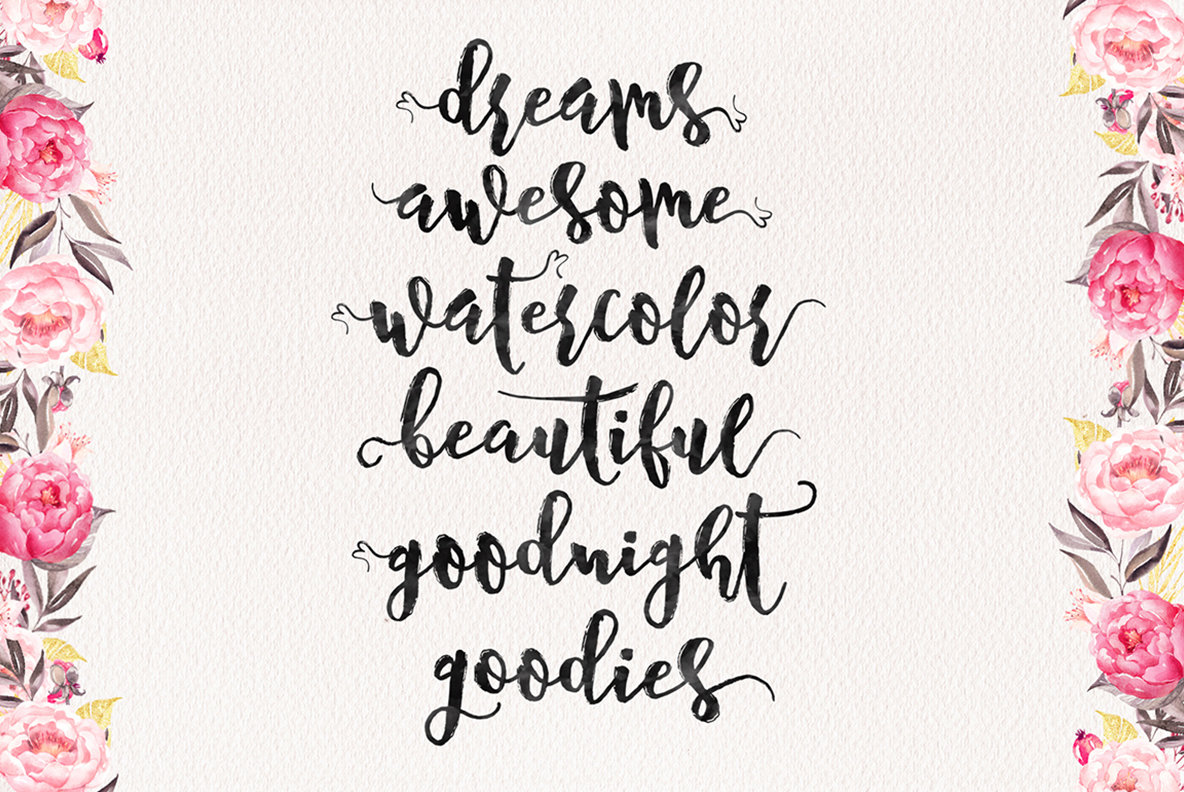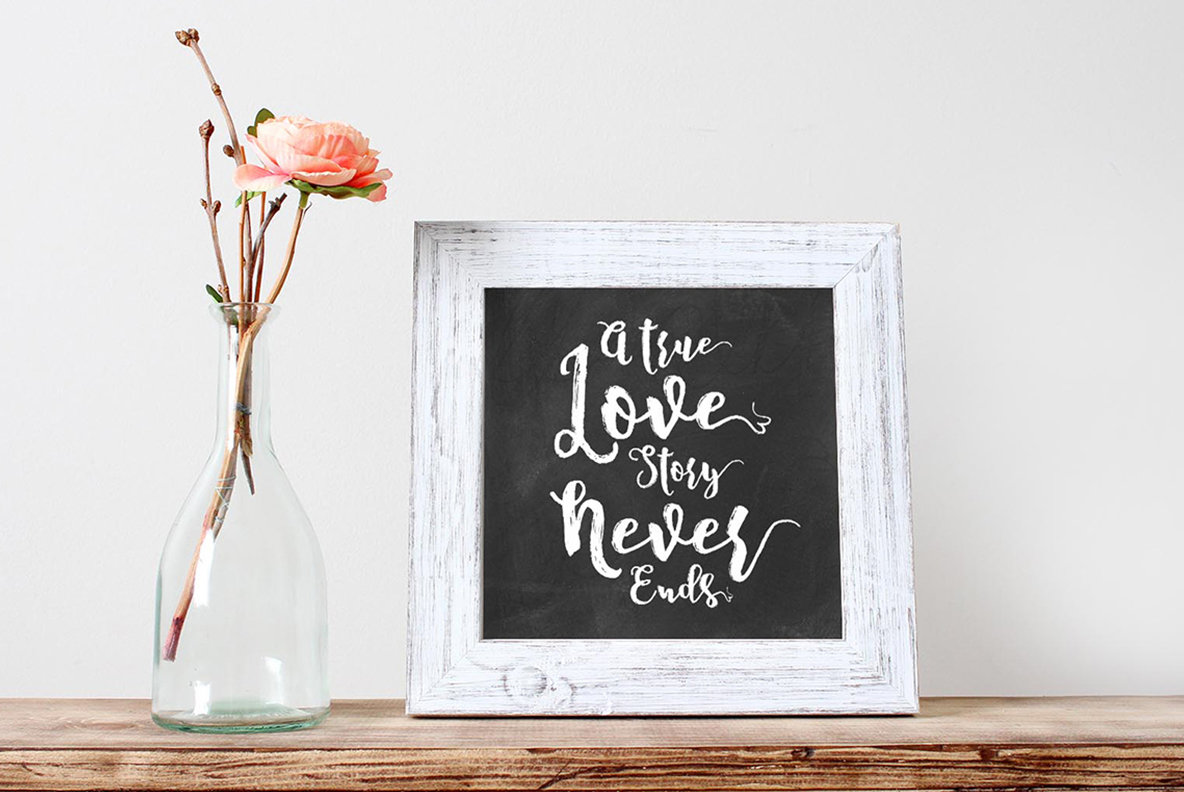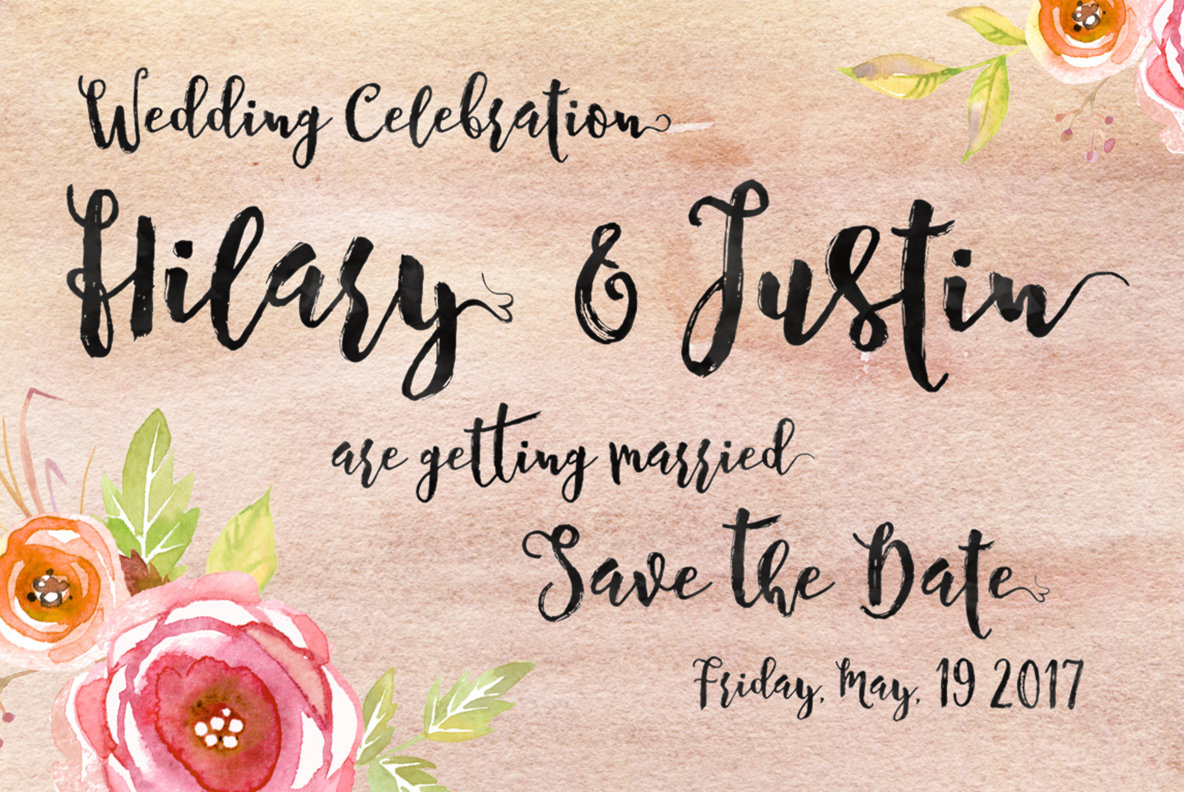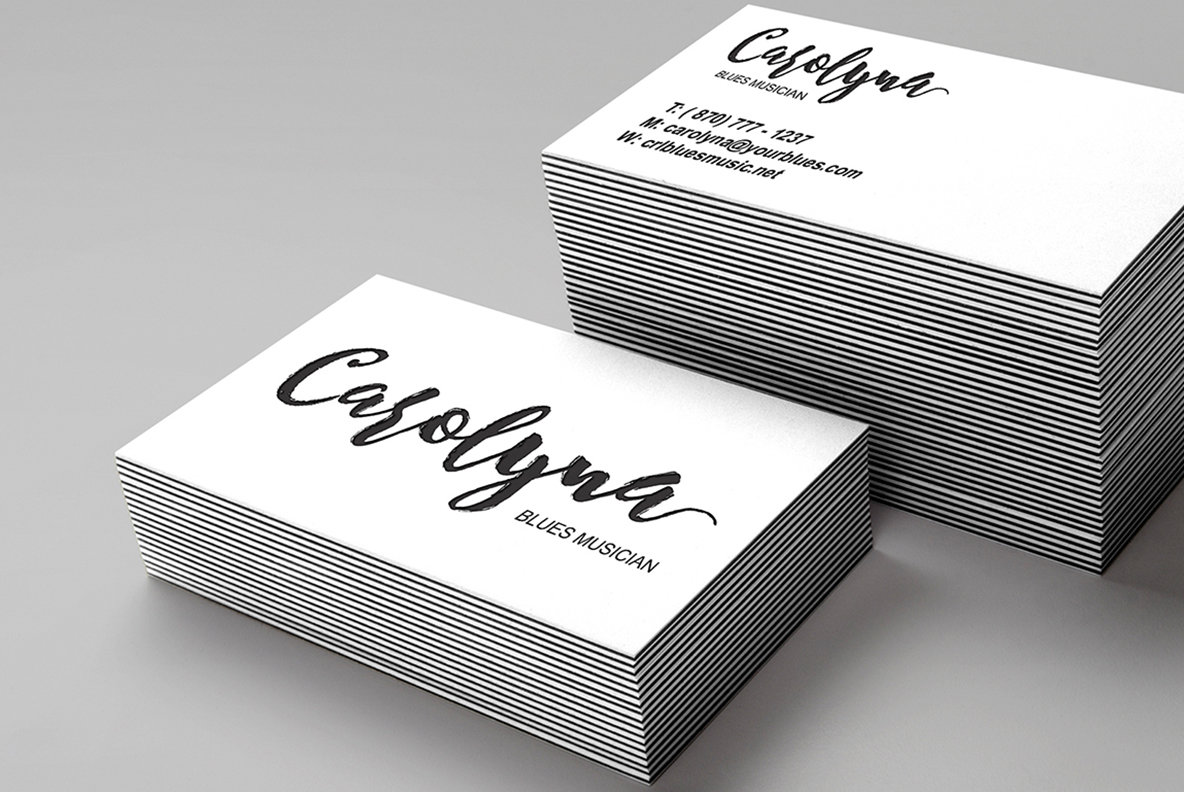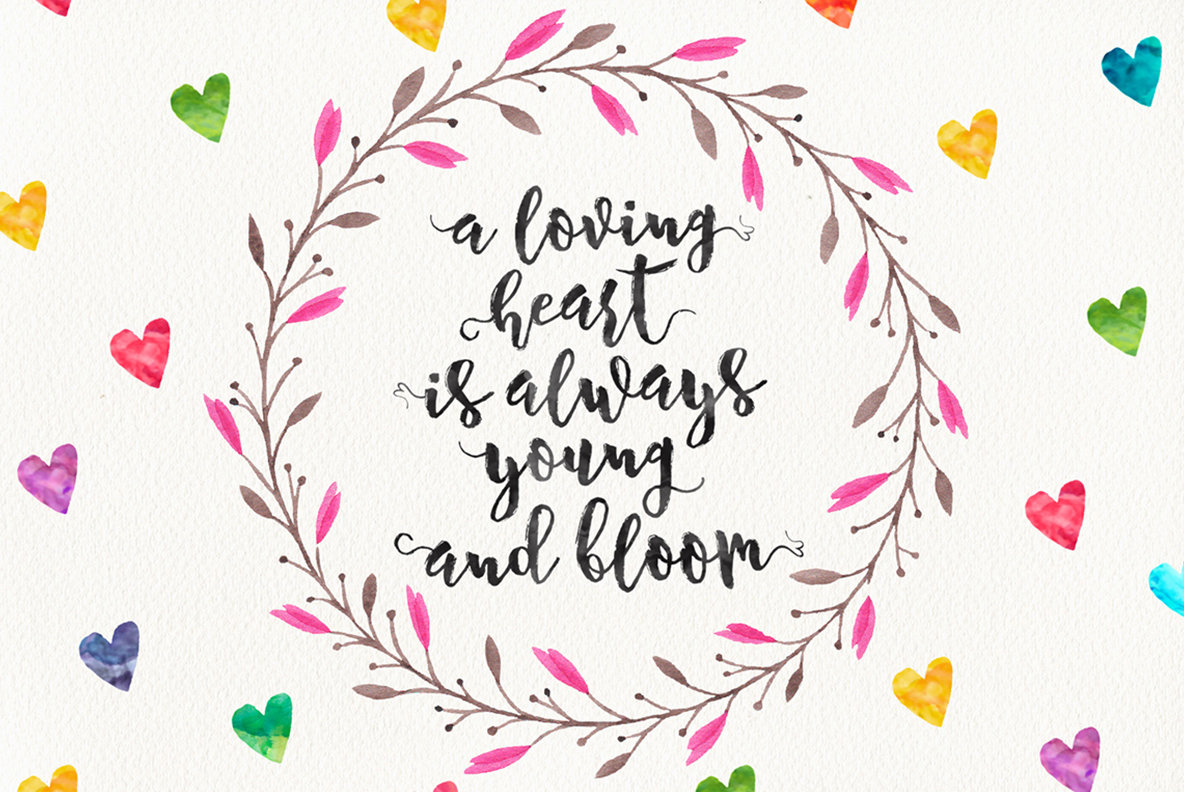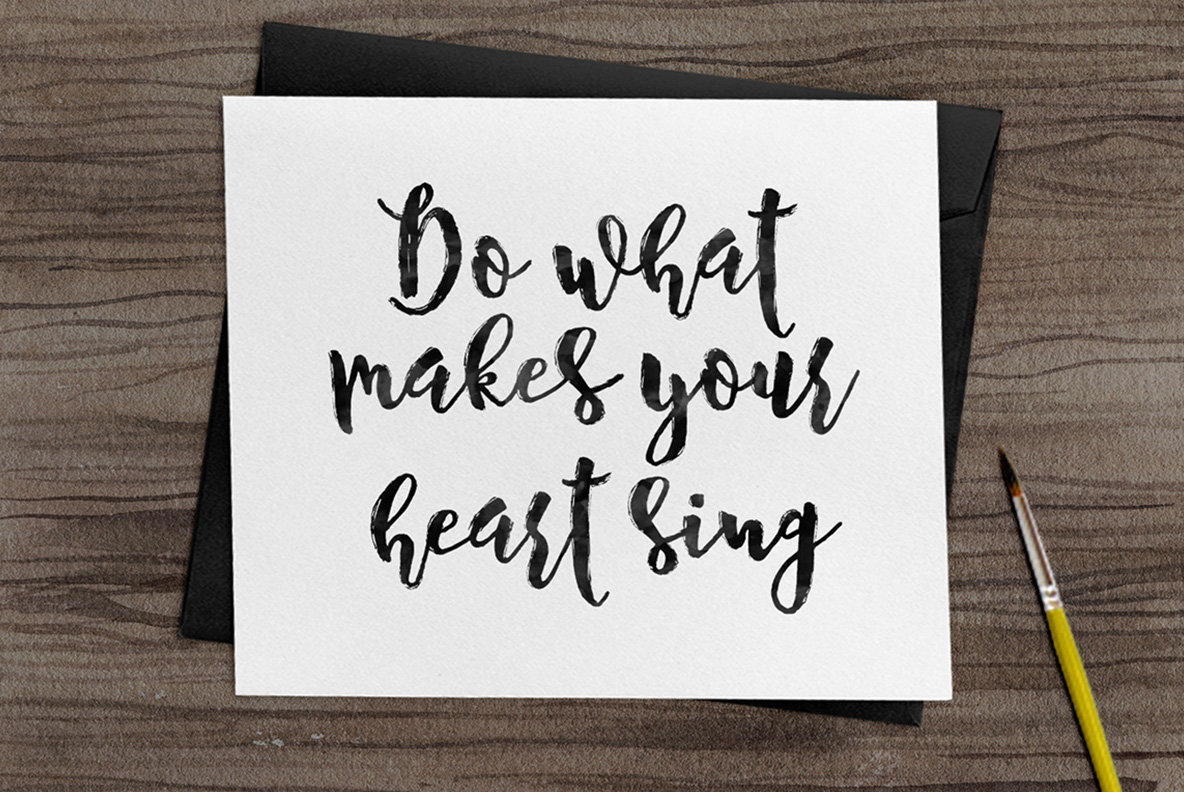
Nostalgic Script is a modern brush font that works great for signatures, letterheads, signage, labels, newsletters, posters, logo, correspondence, wedding invitations, badges, etc. Nostalgic Script features 315 Glyphs, 143 alternate characters, including initial and terminal letters, alternates, ligatures and International support for most Western Languages is included.